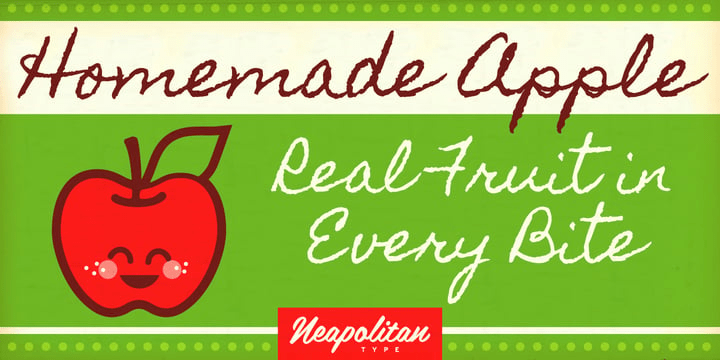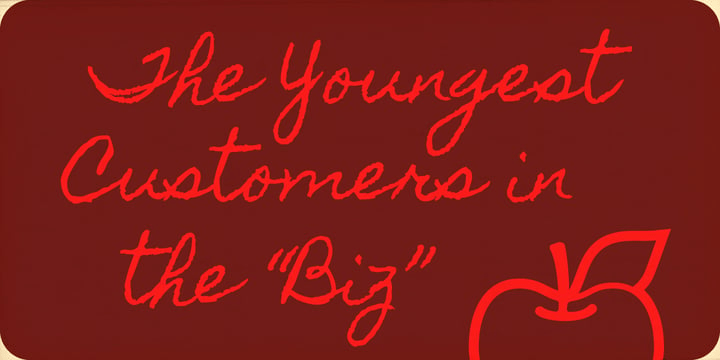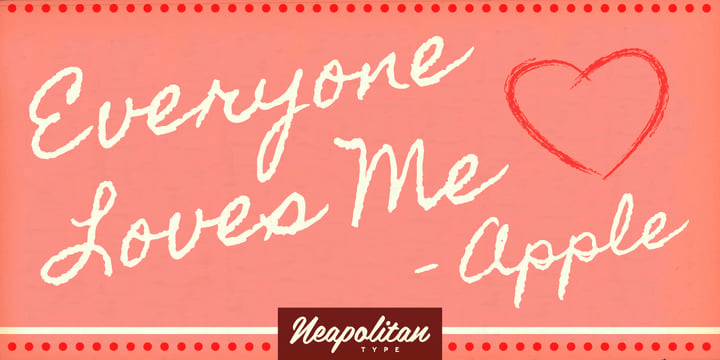
Homemade Apple Pro
Mmmm Mmmm! Nothing says down-home goodness like a delicious Homemade Apple! You can't just buy 'em anywhere, you have to make it yourself! And should you find yourself lacking in the recipe department, bust out this beautifully drawn cursive handwriting script and delight in its warmth! Use it whenever you want to give a personal touch!